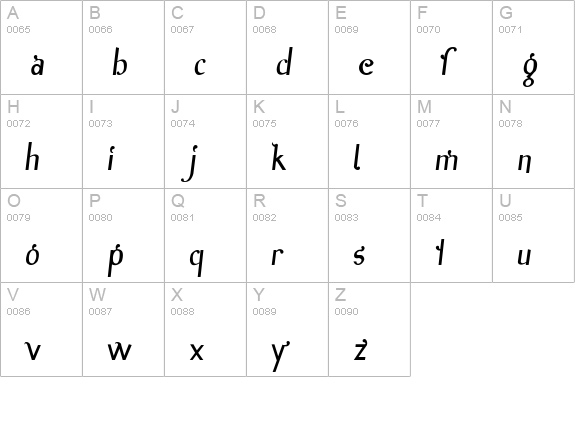
Introducing Inn Font, a beautifully crafted typeface that effortlessly blends elegance and modernity. With its sleek lines and stylish curves, this font is perfect for adding a touch of sophistication to any project. Whether you're designing a logo, creating a professional presentation, or enhancing your personal branding, Inn Font is sure to make a lasting impression. But what sets Inn Font apart from the rest? It's the fact that it's not only exquisite, but also freely available to download at FontsMarket.com. Yes, you read that right – this stunning font can be yours without any cost whatsoever. We believe that everyone should have access to exceptional design resources, and that's why we're thrilled to offer Inn Font as a complimentary download. Imagine the possibilities. You can now elevate your designs without breaking the bank. Whether you're a student, a professional designer, or a small business owner, Inn Font opens doors to creativity and innovation, all while keeping your budget intact. But don't mistake its affordability for compromise in quality. Inn Font is meticulously crafted with attention to every detail, ensuring sharp and clean edges, smooth curves, and perfect spacing. This font is versatile, suitable for both headlines and body text, guaranteeing legibility and visual harmony in every application. So why wait? Take advantage of this fantastic opportunity and download Inn Font today from FontsMarket.com. Join thousands of satisfied users who have already experienced the power of this exceptional typeface. Let Inn Font be the secret weapon in your design arsenal, helping you create stunning visuals that captivate and inspire. The possibilities are endless when you have Inn Font at your fingertips, and the best part is – it won't cost you a dime. Get your free copy now and unlock a world of design possibilities with Inn Font.